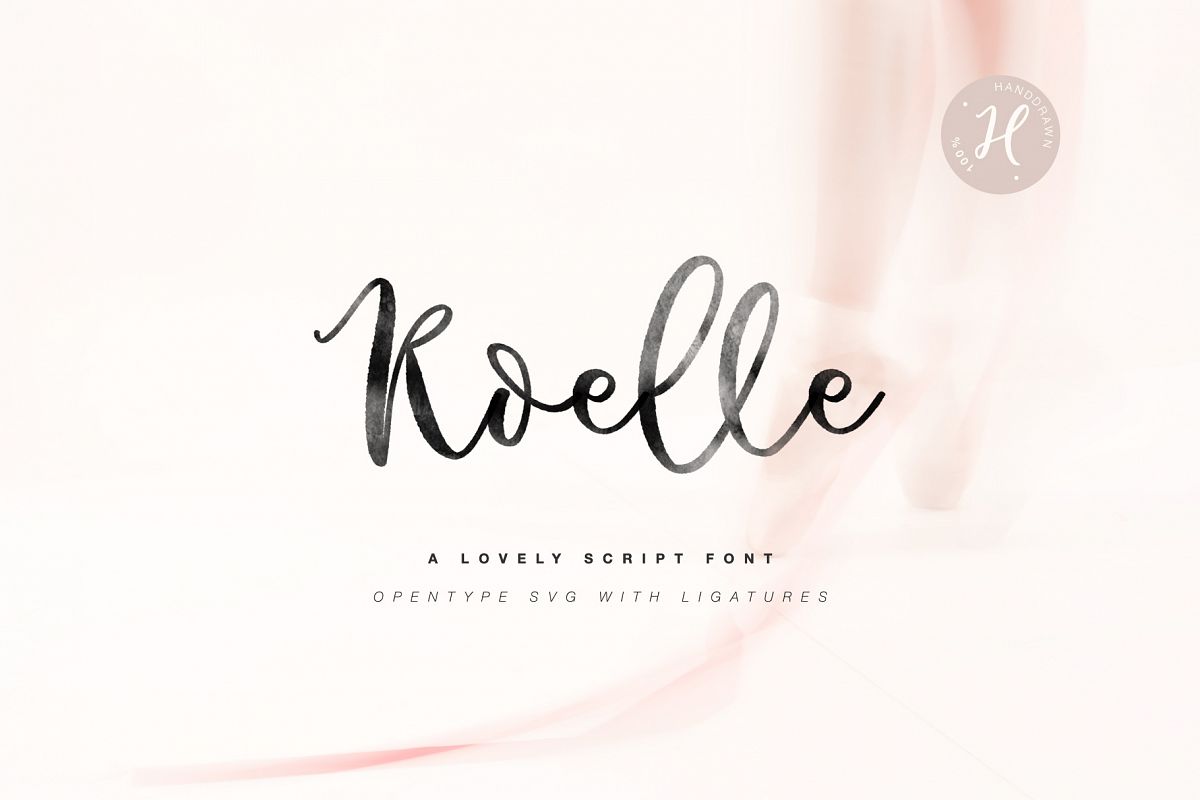
ROELLE SVG handwritten font
Roelle-Script
I always try to make my products better. So I created this amazing font using the new Opentype SVG technology. Yes, to make a beautiful inscription in regular font, it's cool. You can even add texture, but what is watercolor?
First of all, it is transparency, which can not be given by a regular font. But Opentype SVG font is created with real texture and transparency of watercolor paint. Therefore, you can make absolutely natural watercolor inscriptions directly on your computer :)